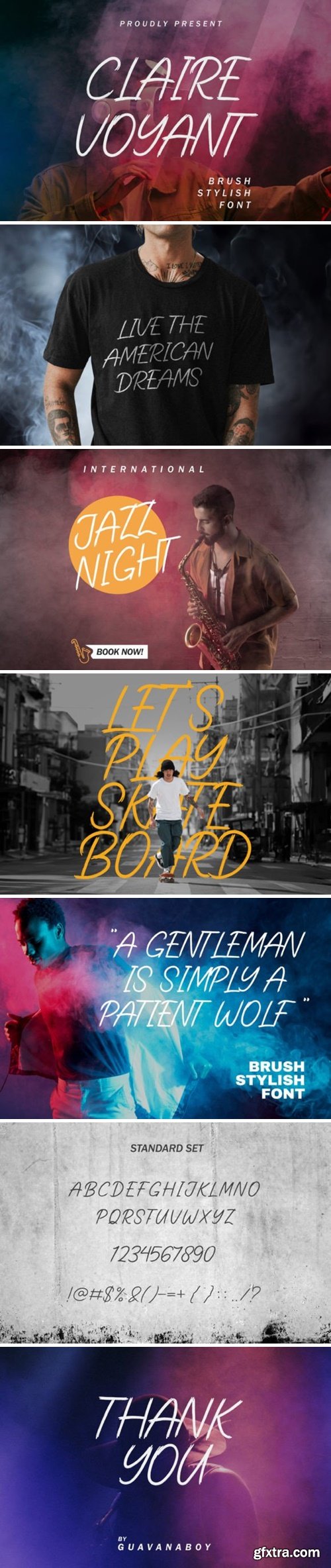
Clairevoyant Brush Stylish Font 92435328
Introducing our “CLAIREVOYANT” Brush Stylish Font with bold and strong yet light stroke Style. Perfect for apparel, t-shirt, logos, branding, invitation, wedding, photography, social media posts, and more.